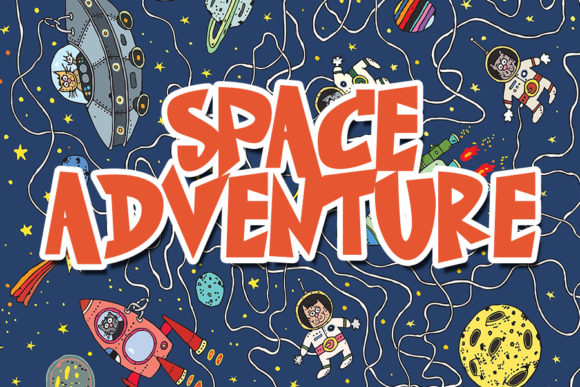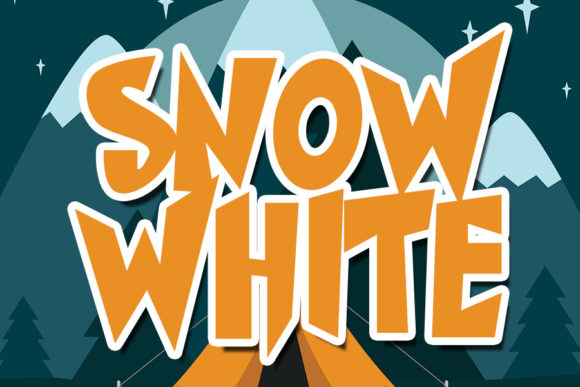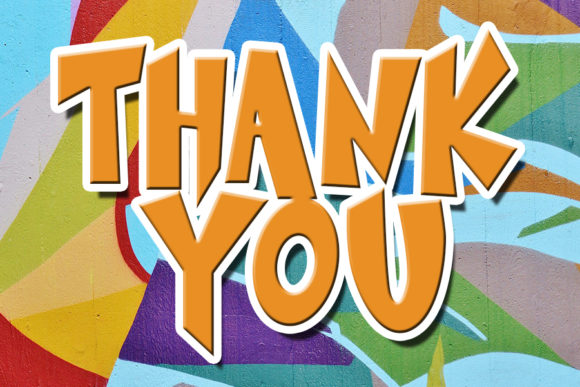
Introduction to December Story Font
December Story is a bold, thick lettered and cartoon like display font.
This original look will appeal to a wide range of crafty ideas, from letterheads and titles, to stationery .